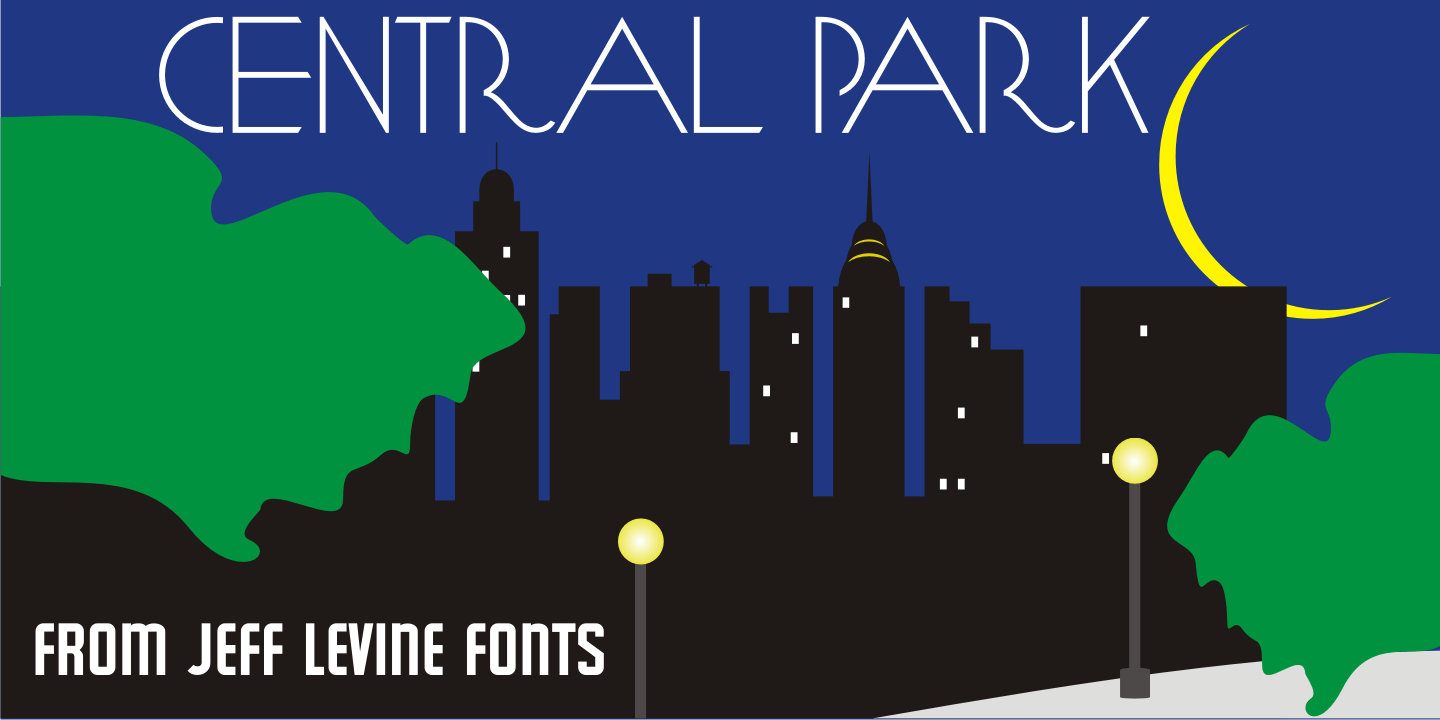
Central Park
The beautiful Art Deco monoline pen lettering on the cover of a 1940s piece of sheet music inspired Central Park JNL.
The 1940s was an era when couples took romantic walks along the pathways of Manhattan's Central Park or rode around it in hansom cabs. Big bands played at the major clubs and ballrooms and 'uptown' meant the well-to-do. Men dressed in their tuxedos and top hats and the ladies were in their jewels and evening gowns.